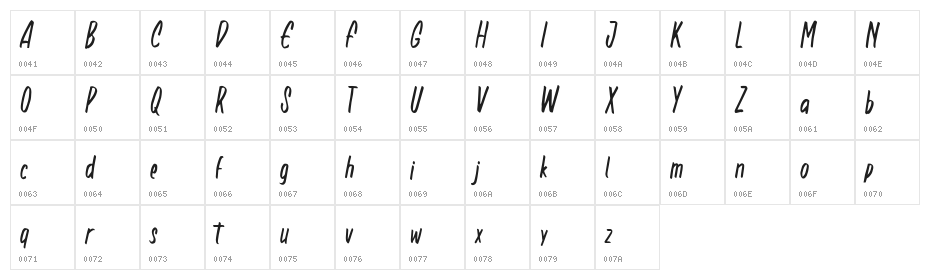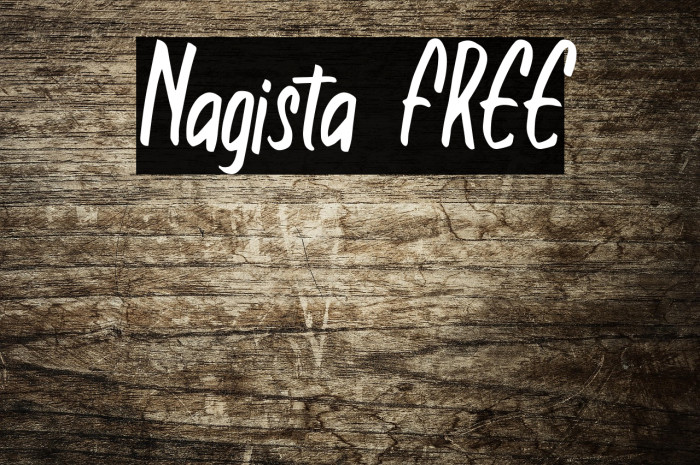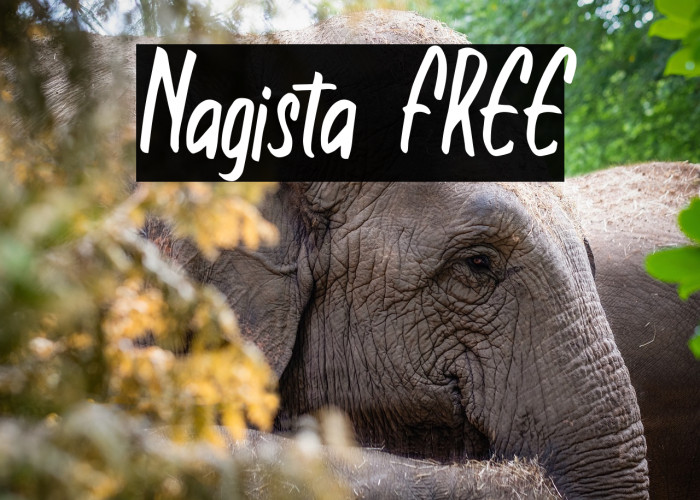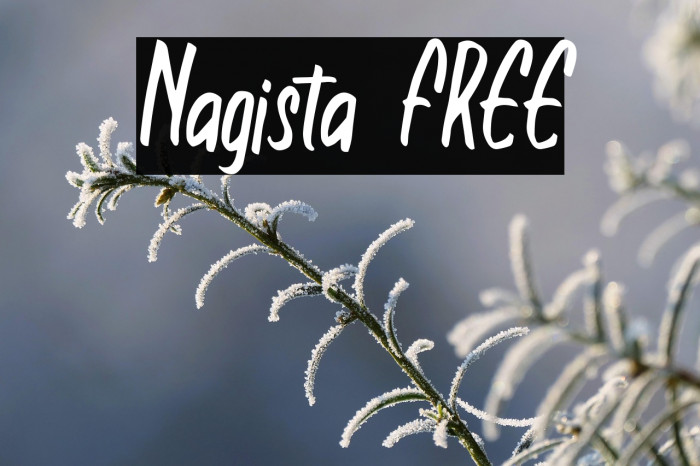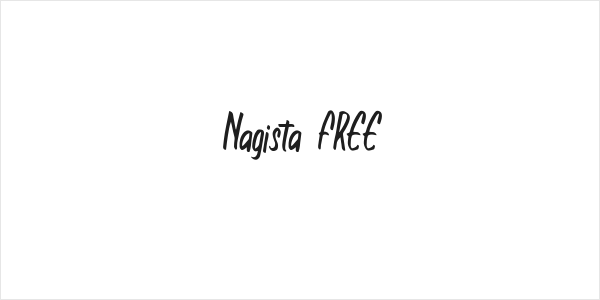
Nagista FREE Font
Nagista FREE Description
This font features a dynamic and energetic handwritten style, characterized by its bold and slightly slanted letters. The strokes are smooth and fluid, giving a sense of motion and liveliness. The uppercase and lowercase letters maintain a consistent style, with a playful yet legible appearance. The numbers and special characters are designed to match the overall aesthetic, ensuring a cohesive look across all text elements. This font's unique style makes it suitable for projects that require a personal touch or a creative flair.
| Proposed Projects | Ideal for branding, social media graphics, posters, and invitations that require a personal and creative touch. |